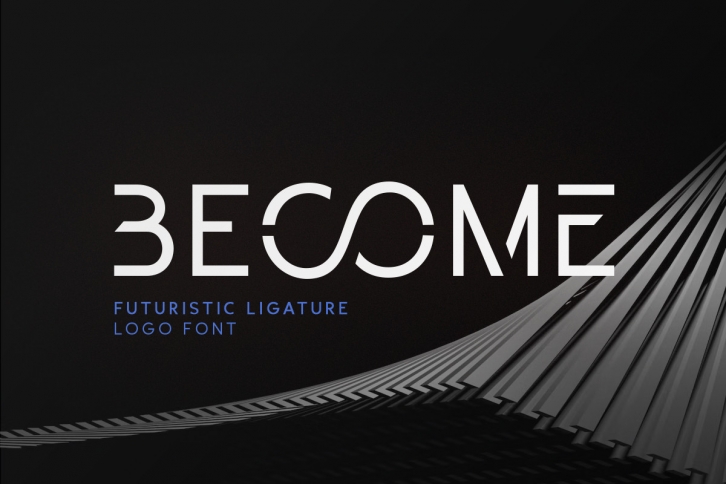
Become is a futuristic logo font based on sans serif. With unique and twisted lowercase, you can make your logo looks more attractive and modern. This font also including creative ligature that will make your project looks more stunning. You can use this font for branding, logo, and designs that require sci-fi looks. This font also support multilingual.